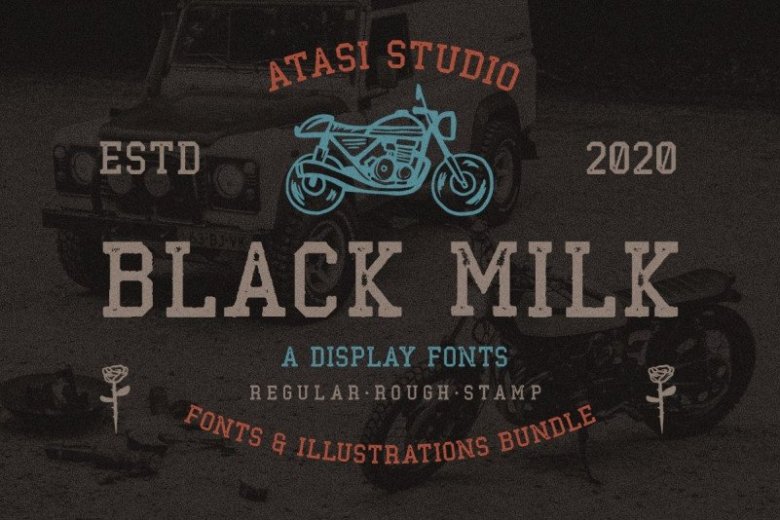
Black Milk Display Font
BLACK MILK is a display font with retro & vintage look.
BLACK MILK is ready and Perfectly fit for your logo designs, music projects & social media posts, event poster, brand imagery, product packaging, handwritten quotes, merchandise, etc.